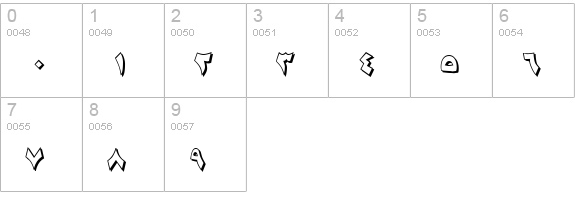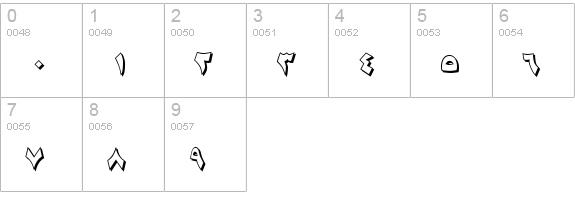
B Majid Shadow Font Details
B Majid Shadow font is a stunning display typeface that exudes elegance and sophistication. Its bold and intricate design makes it perfect for headlines, logos, and branding projects that require a touch of luxury. The unique shadow effect adds depth and dimension to each letter, creating a visually striking appearance that is sure to capture attention. What makes B Majid Shadow font even more appealing is that it is available for free download at FontsMarket.com. This means that you can easily access this beautiful typeface without any cost, making it a valuable addition to your font collection. Whether you're a designer looking to add a touch of glamour to your projects or a business owner in need of a standout logo, B Majid Shadow font is the perfect choice. Download it today and elevate your designs with this exquisite typeface.